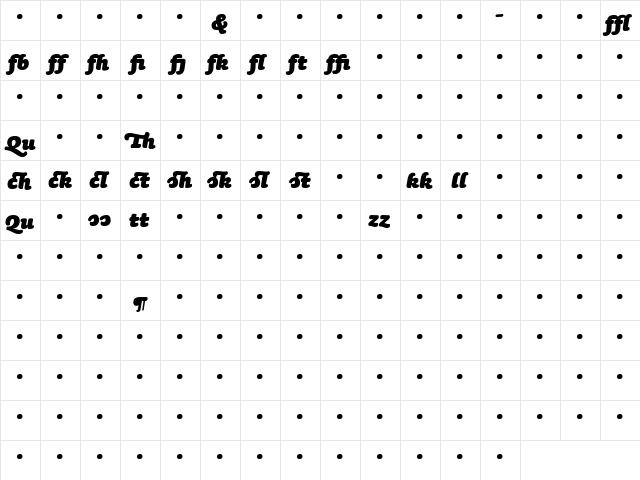
SaunaLigatures-BlackItalicSwash Regular
Design Context for SaunaLigatures-BlackItalicSwash Typeface
SaunaLigatures-BlackItalicSwash brings a calligraphic fluidity to the page — its connecting strokes and expressive curves give it an unmistakably human quality.